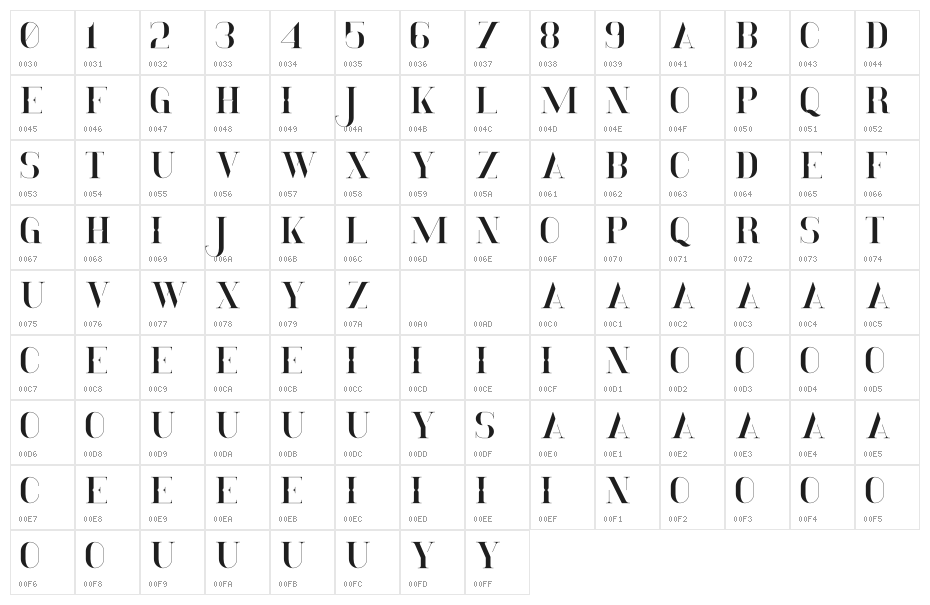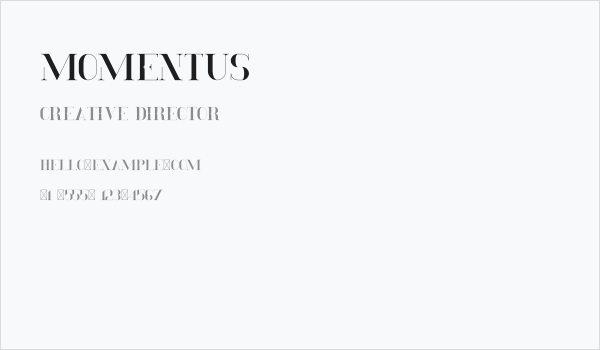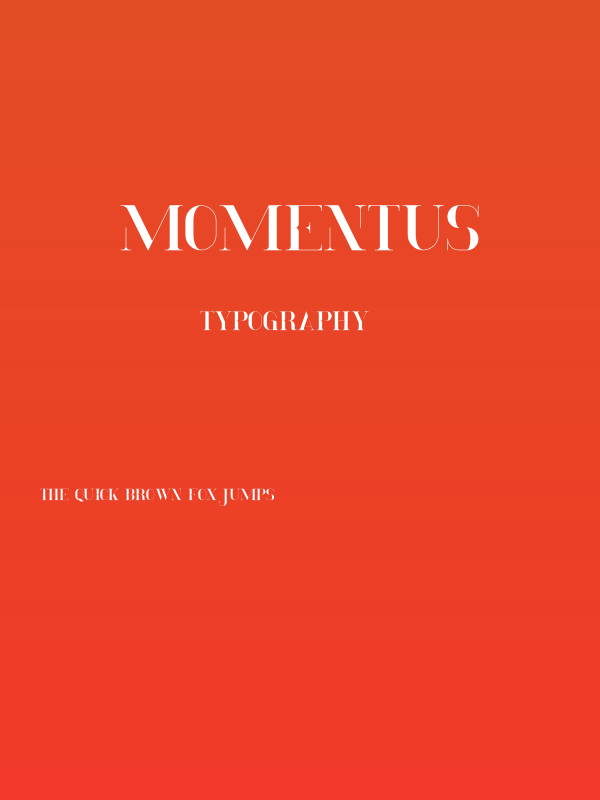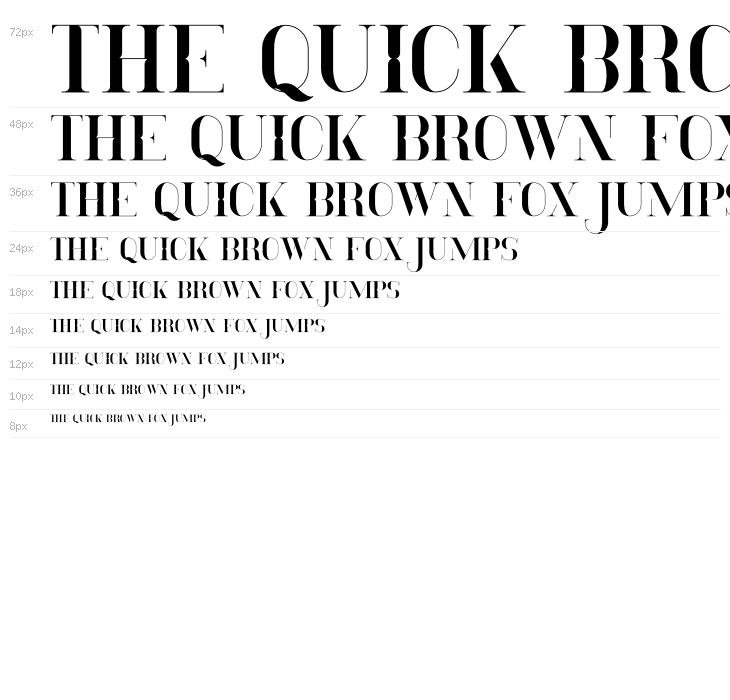
Momentus Font
Momentus Description
This font features a striking and bold design with high contrast between thick and thin strokes, giving it a dramatic and elegant appearance. The uppercase letters are particularly prominent, with sharp, angular serifs that add a touch of sophistication. The numbers are equally bold, maintaining the high contrast and angular style. The overall design is modern yet reminiscent of classic serif fonts, making it versatile for various uses. The spacing between characters is tight, enhancing the boldness and impact of the text.